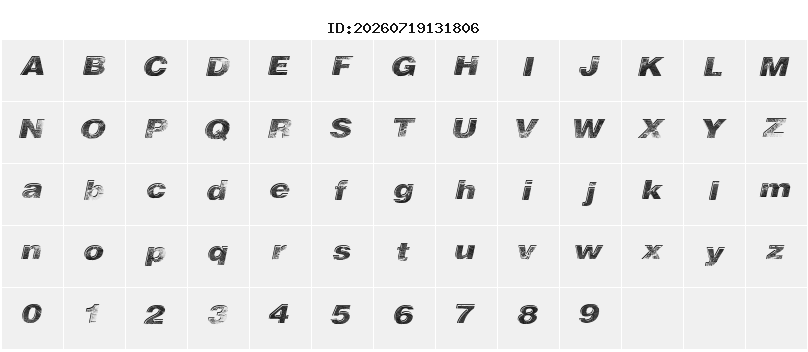
• Font Name: CloseRace
• Designer: Xerographer Fonts Max Infeld
• Description: Made at Xerographer Studios in Chico,CA
CloseRace.ttf is a modern, elegant sans-serif font designed for ultimate readability and visual harmony. Perfect for branding, headlines, web design, and print materials.